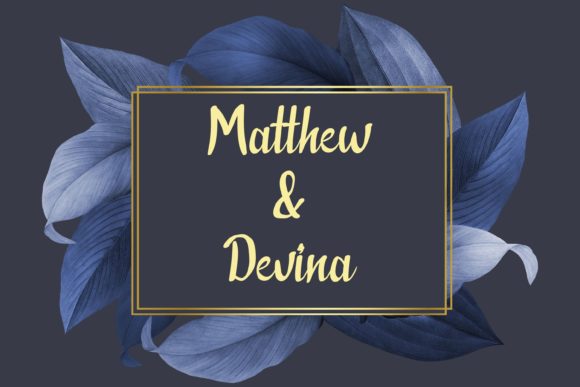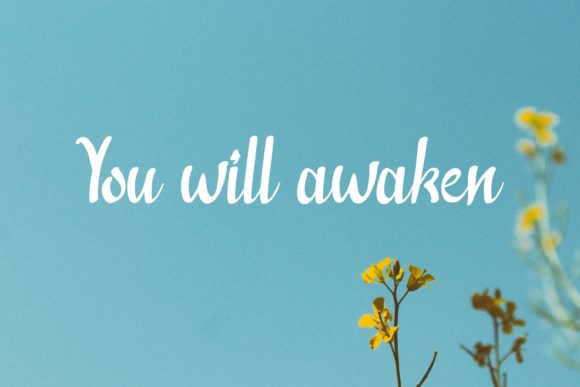
Casidy Font
db-ku.com - Script & Handwritten -- Casidy is a well balanced and delicate script font. It will look stunning on any poster, flyer or print. This font is PUA encoded which means you can access all glyphs and swashes with ease!